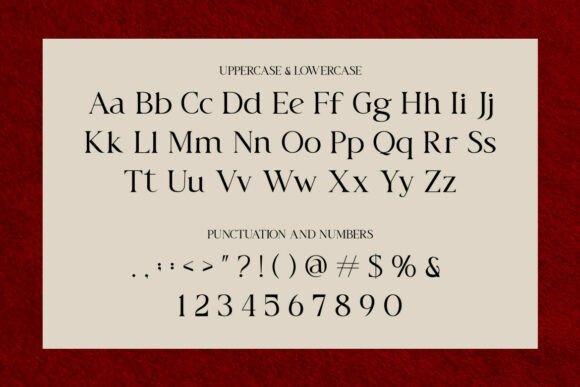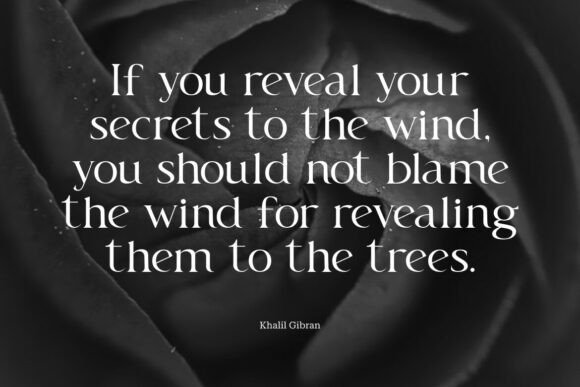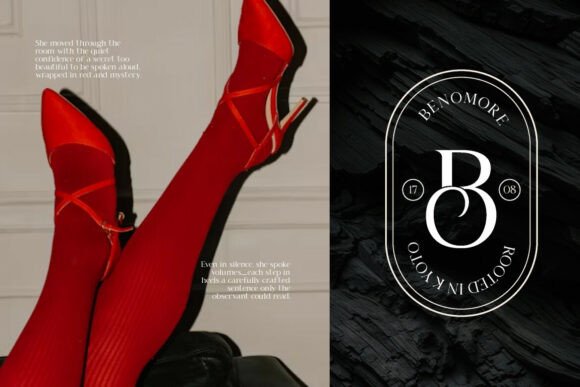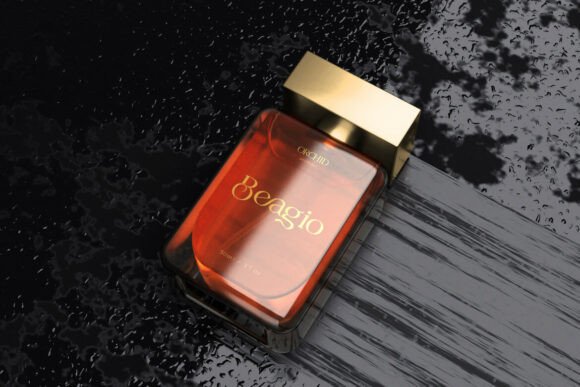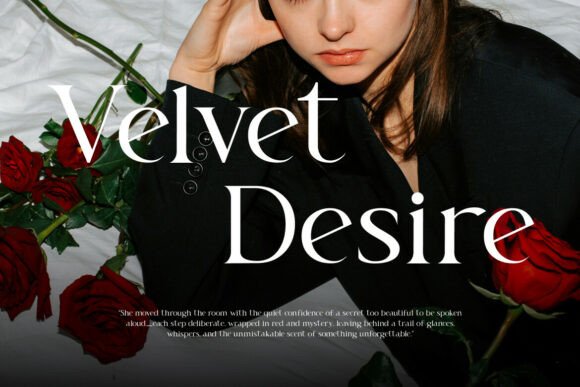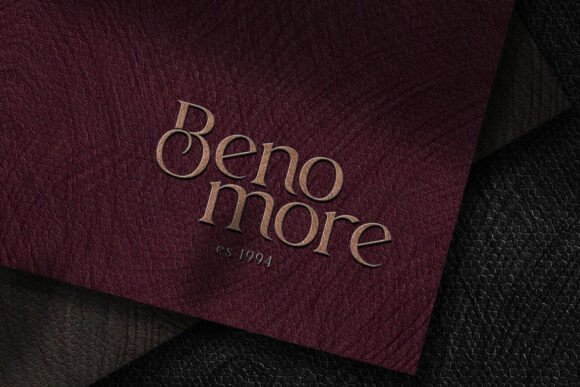
Introducing Beagio Font: The Epitome of Elegance and Sophistication
In the realm of typography, few fonts manage to capture the essence of elegance and sophistication as effortlessly as Beagio. This modern, elegant serif font is meticulously designed to infuse your projects with a sense of romanticism, luxury, and emotional depth. Whether you’re working on romantic branding, editorial design, high-end packaging, or any project that demands a touch of class, Beagio is the perfect choice.
The Beauty of Beagio
Beagio’s design is characterized by its delicate curves and graceful proportions, which together evoke a sense of timeless beauty. The font’s poetic tones and floral visuals enhance its aesthetic appeal, making it an ideal choice for projects that require a sophisticated and luxurious look. From perfume labels to fashion spreads, invitations, and quotes, Beagio brings an expressive and high-end feel to every letter.
Crafting Your Message with Elegance
With Beagio, your message doesn’t just get conveyed; it tells a story. This typeface has the unique ability to turn your words into an intimate and visually compelling narrative. Its elegant serifs and fluid lines make it perfect for designs that aim to evoke emotions and create a lasting impression. Whether you’re a designer looking to elevate your branding or a crafter seeking to add a touch of sophistication to your projects, Beagio is your go-to font.
Ideal for Various Applications
Beagio’s versatility is one of its standout features. It’s designed to excel in a variety of applications, including:
- Perfume Labels: Add a touch of luxury and allure to your fragrance packaging.
- Fashion Spreads: Elevate your fashion editorials with a font that exudes style and sophistication.
- Invitations: Make your invitations unforgettable with a font that speaks of elegance and class.
- Quotes: Give your quotes the prominence they deserve with a font that’s both expressive and luxurious.
Why Choose Beagio?
Beagio is more than just a font; it’s a design statement. Here are a few reasons why designers and crafters are gravitating towards Beagio:
- Emotional Connection: Beagio’s design elements are crafted to create an emotional connection with your audience.
- Versatility: Its elegant and sophisticated look makes it suitable for a wide range of projects.
- Timeless Appeal: Beagio’s classic serifs ensure that your designs remain timeless and relevant.
In conclusion, Beagio is a modern elegant serif font that brings a new level of sophistication and emotional depth to your designs. Its delicate curves, graceful proportions, and poetic tones make it perfect for projects that demand a luxurious aesthetic. Whether you’re working on romantic branding, editorial design, or high-end packaging, Beagio is your key to creating visually compelling stories. Elevate your designs with Beagio and experience the power of elegant typography.